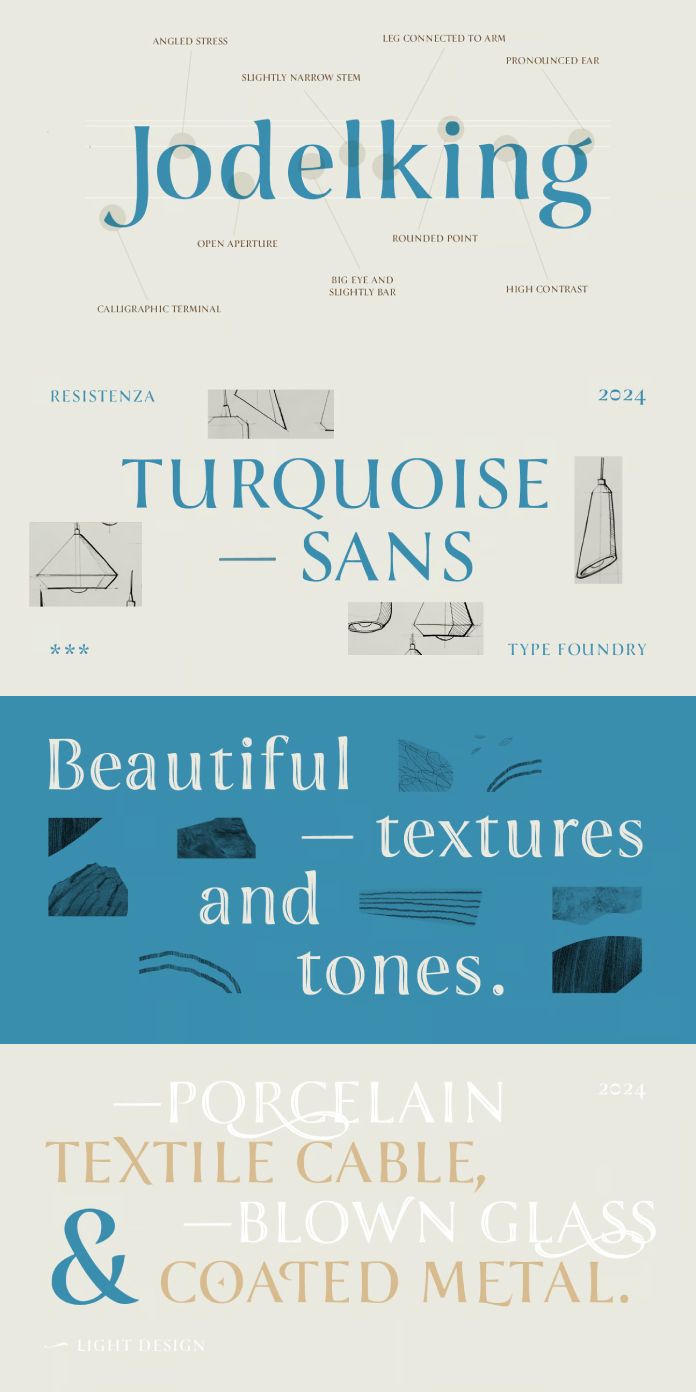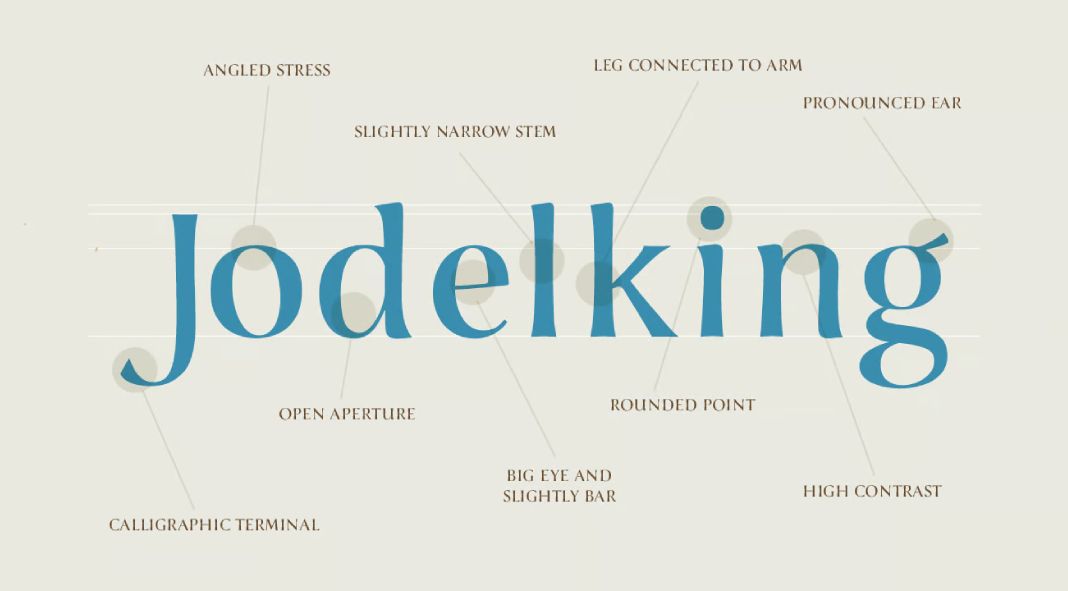
A Modern Typeface with a Hint of Tradition
Sans-serif fonts are often seen as the epitome of modernity and simplicity. However, not all sans-serifs are created equal. Some, like Turquoise Sans from Resistenza Type, manage to strike a delicate balance between modern sensibilities and traditional elegance.
Designed by Giuseppe Salerno and Paco González, Turquoise Sans is a two-style typeface that exudes a sense of refinement and sophistication. While classified as sans-serif, Turquoise Sans features subtle swellings at the terminals, inspired by classical Roman capitals and Resistenza’s best-selling Turquoise font. These subtle details add a touch of warmth and personality to the typeface, making it stand out from the crowd of generic sans serifs.
The typeface’s two styles, Regular and Inline, offer a versatile range of options for designers. The Regular style is perfect for body text and headlines, while the Inline style is ideal for creating striking accents and decorative elements. Both styles are well-balanced and easy to read, making Turquoise Sans a great choice for a wide variety of applications.
Whether you’re working on a branding project, a website design, or an editorial piece, Turquoise Sans is a font that will add a touch of class and sophistication to your work. Its unique blend of modern and traditional elements makes it a versatile and timeless typeface that will be sure to impress your clients and audience.
Key Features of Turquoise Sans:
- Two styles: Regular and Inline
- Subtle swellings at the terminals for added warmth and personality
- Well-balanced and easy to read
- Versatile and suitable for a wide range of applications
- Timeless and elegant design
Here are some additional details about Turquoise Sans:
- Designer: Giuseppe Salerno and Paco González
- Foundry: Resistenza
- Styles: Regular, Inline
If you’re looking for a modern sans-serif font with a touch of tradition, Turquoise Sans is a great option to consider. Its unique design and versatility make it a valuable addition to any designer’s toolkit.
In addition to the information above, here are some additional tips for using Turquoise Sans:
- Use the Regular style for body text and headlines.
- Use the Inline style for accents and decorative elements.
- Pair Turquoise Sans with a serif font for a more traditional look.
- Pair Turquoise Sans with another sans serif font for a more modern look.
- Use Turquoise Sans in a variety of colors and weights to create visual interest.